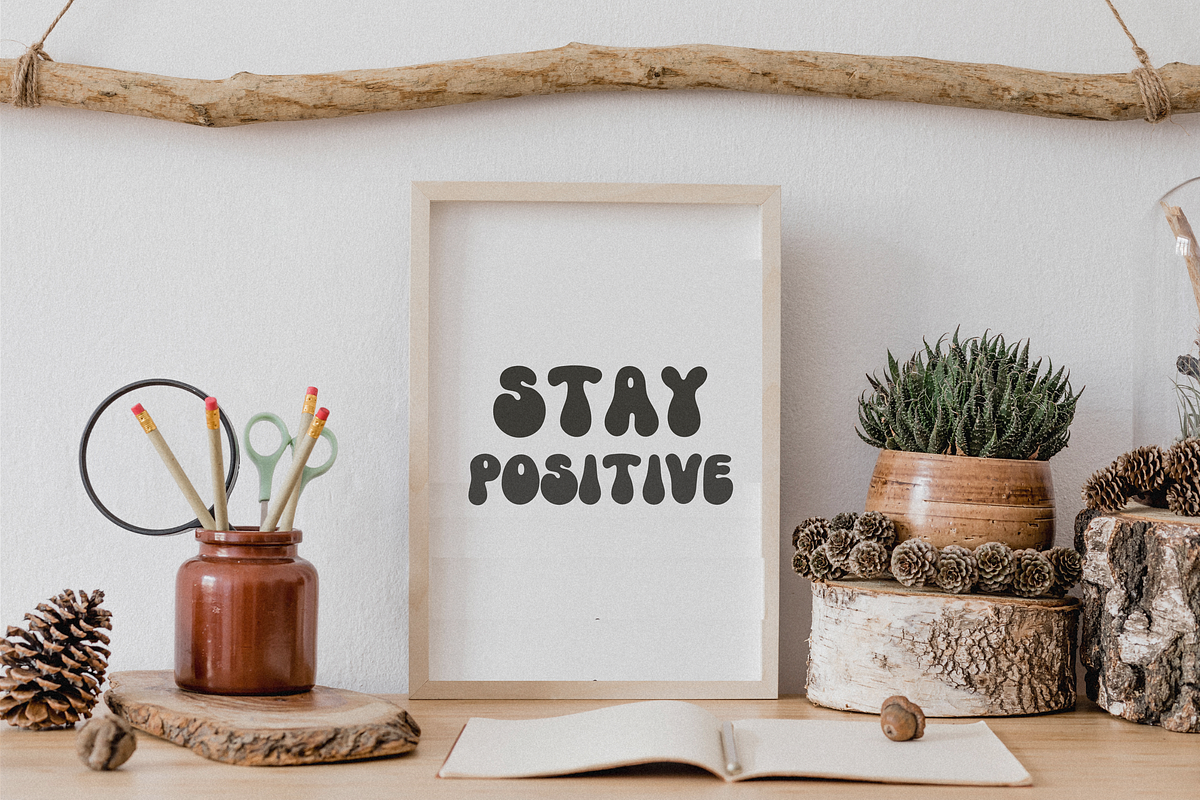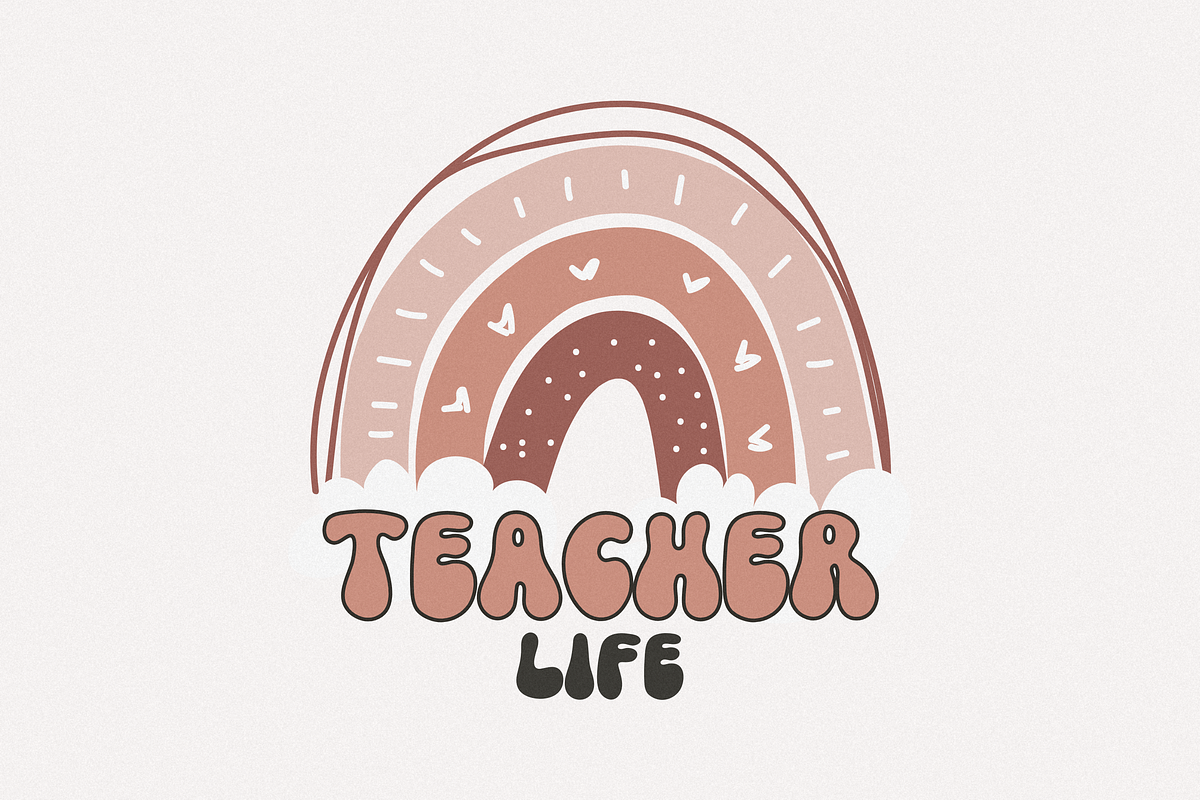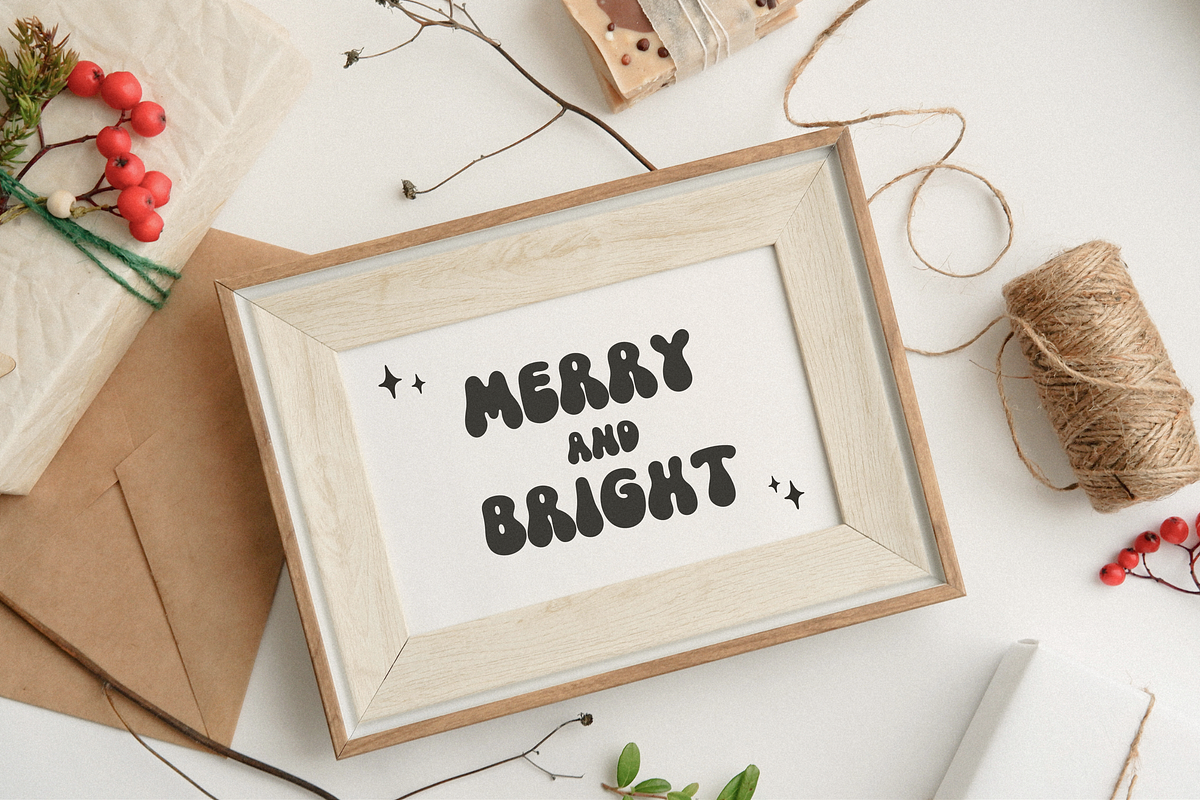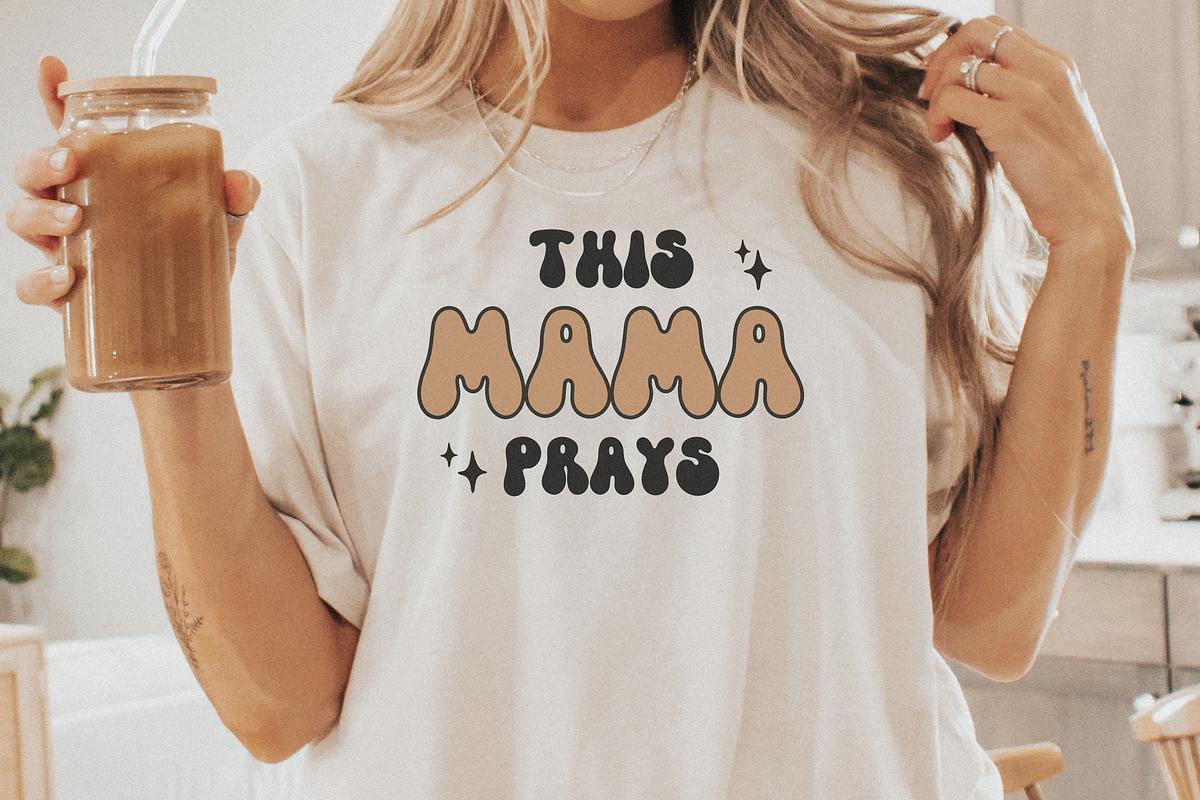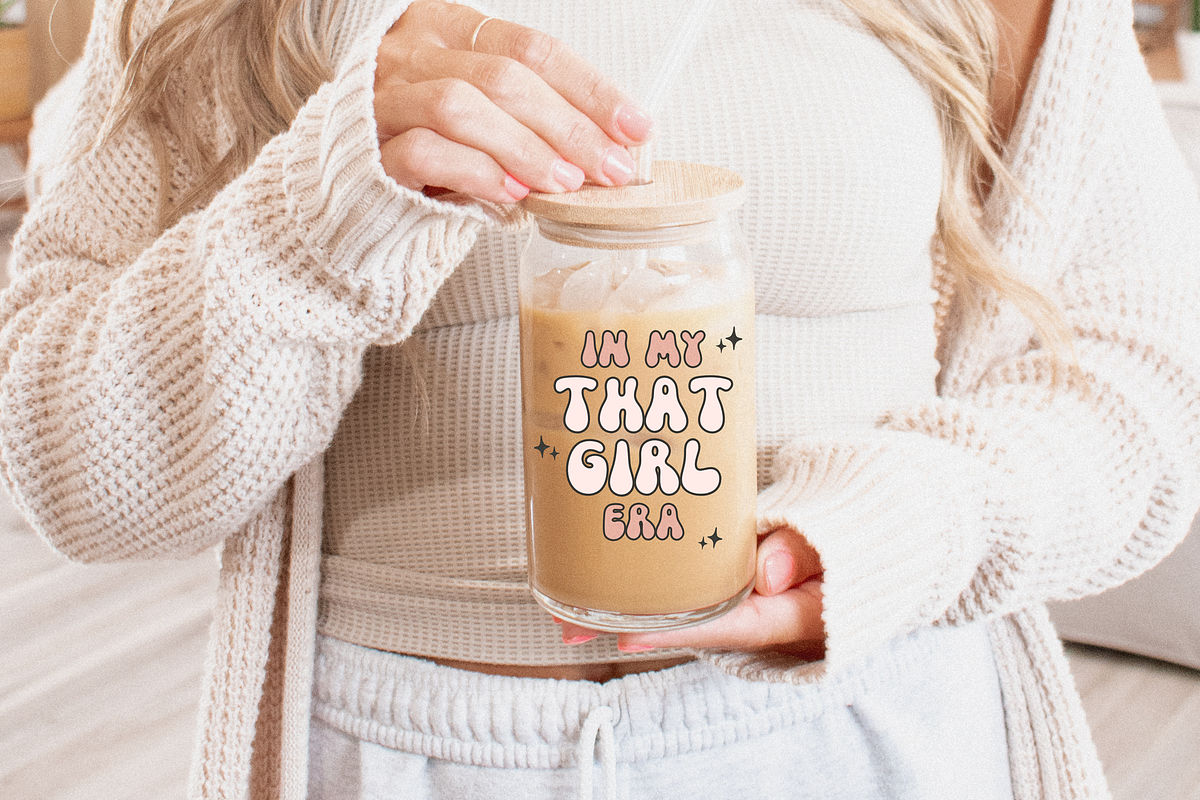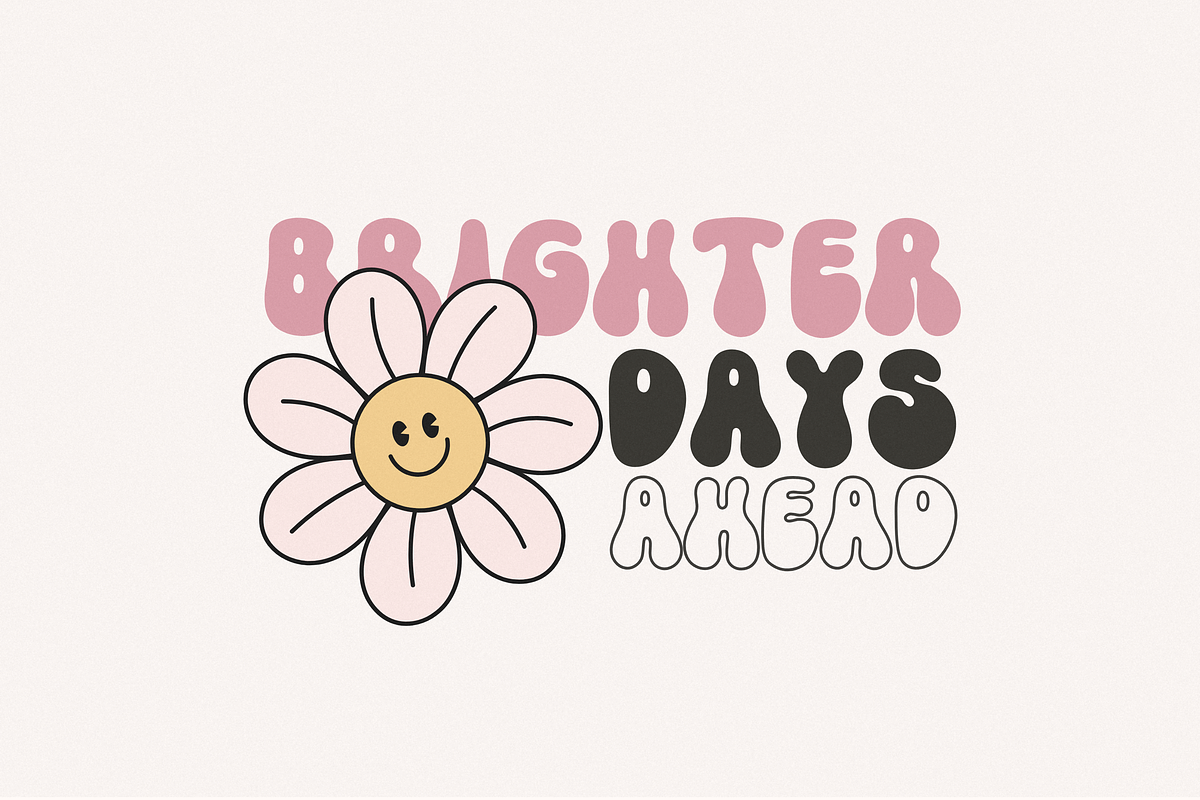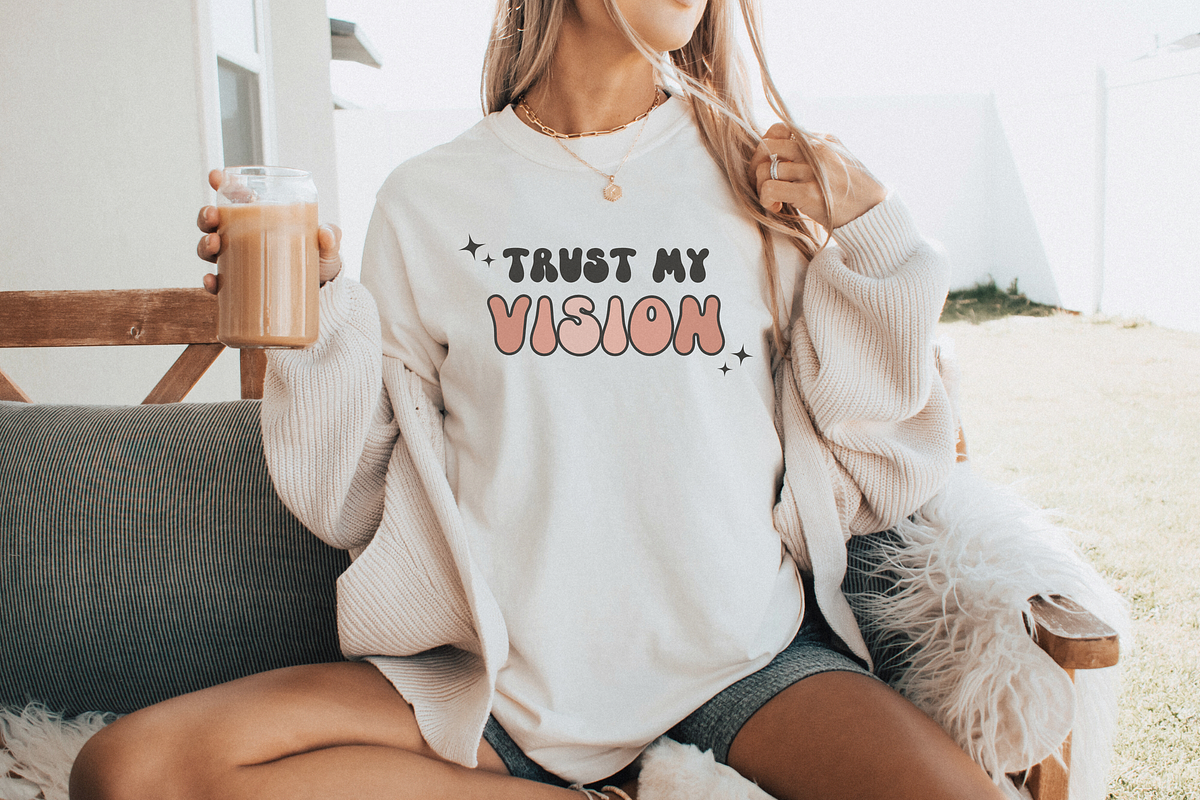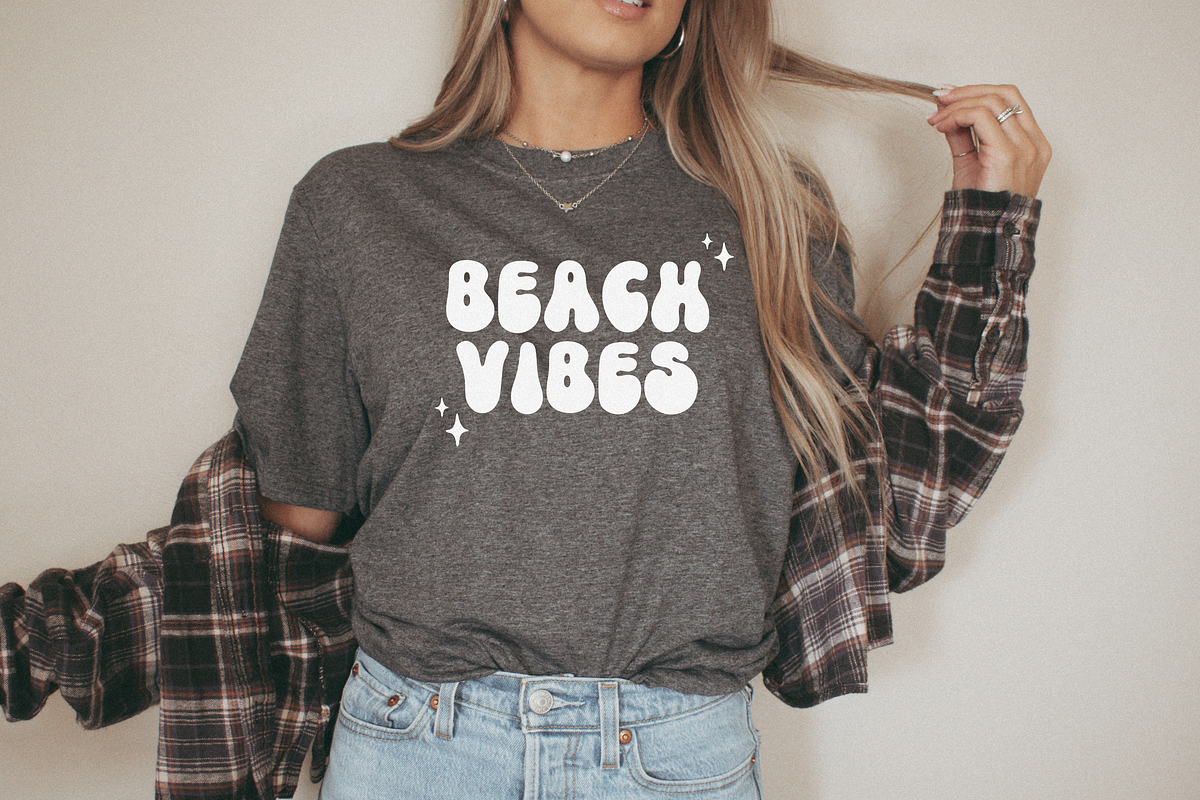
PARTY NIGHT Font
PARTY NIGHT FONT A cute bubbly retro display font with 70s, hippie and boho style
✦ PARTY NIGHT FONT is perfect for: shirts, mugs, logos, wedding invitations, poster, greeting cards, social media, branding, Procreate, Cricut and more!